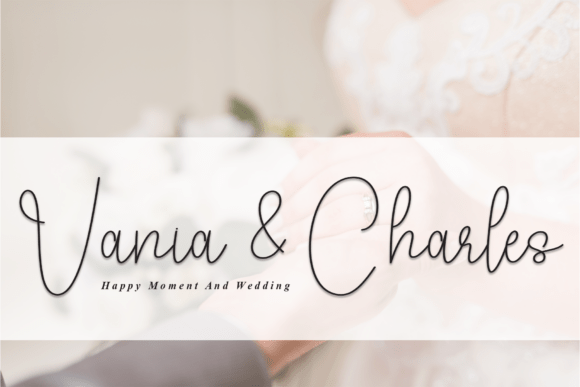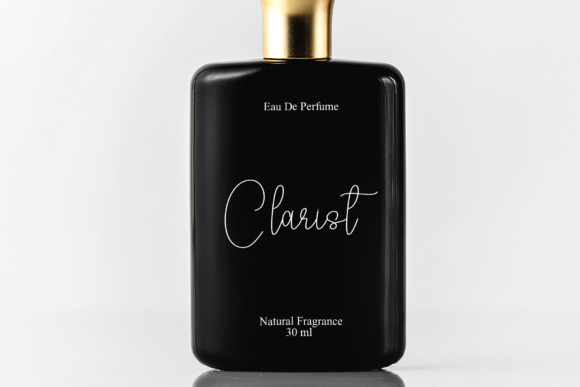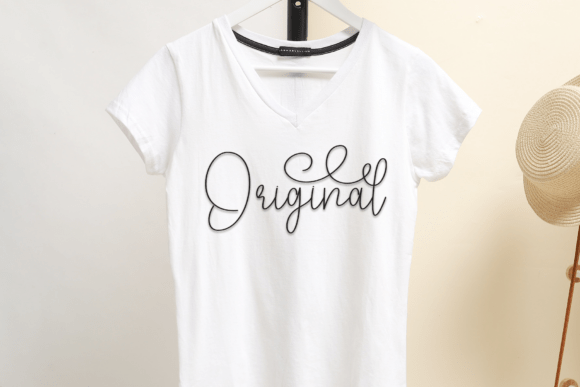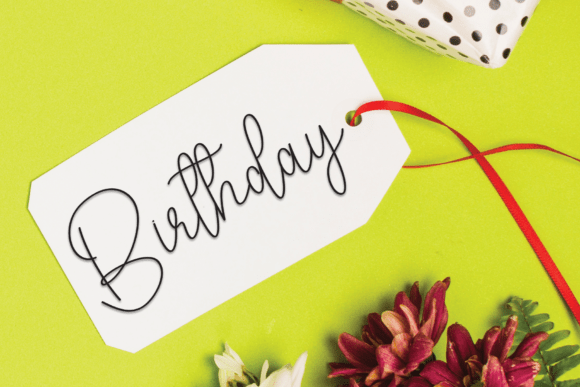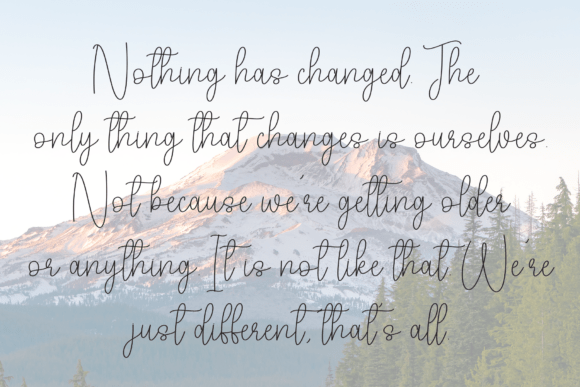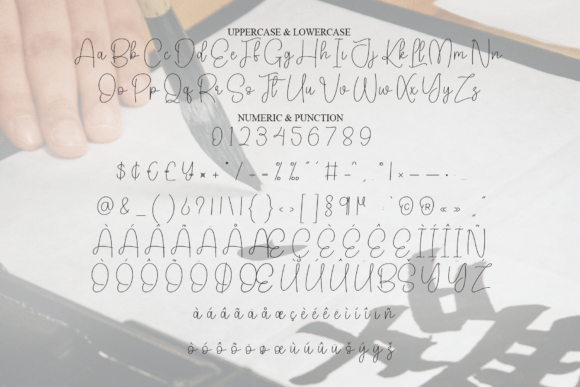
Elevate Your Designs with Calligraphy Font: A Timeless Elegance
Calligraphy is a stylish handwritten script font that combines elegance with a modern flair. Its flowing strokes and organic curves bring warmth and sophistication to any project. Ideal for branding, invitations, and social media, this typeface adds a personal, refined touch with effortless charm. In this article, we’ll explore the world of Calligraphy Font, its characteristics, and how to effectively use it in your designs.
The Art of Calligraphy: A Brief History
Calligraphy, which comes from the Greek words “kallos” meaning beauty and “graphein” meaning to write, is an ancient art form that dates back to the early days of writing. It involves the use of specialized tools, such as nibs, ink, and quills, to create decorative and artistic lettering. Over the centuries, calligraphy has evolved, influenced by various cultures and artistic movements, resulting in a diverse range of styles and techniques.
Characteristics of Calligraphy Font
Calligraphy Font is a modern interpretation of traditional calligraphy, distilled into a digital format. Its key characteristics include:
- Flowing strokes: Calligraphy Font features smooth, connected strokes that create a sense of fluidity and movement.
- Organic curves: The font’s curves and swashes add a touch of elegance and sophistication.
- Modern flair: Calligraphy Font combines traditional calligraphy elements with a modern twist, making it perfect for contemporary designs.
Using Calligraphy Font in Your Designs
Calligraphy Font is a versatile typeface that can elevate a wide range of design projects. Here are some ideas on how to use it:
- Branding: Add a touch of elegance to your brand’s identity with Calligraphy Font. Use it for logos, business cards, or letterheads to create a sophisticated image.
- Invitations: Make your invitations stand out with Calligraphy Font. It’s perfect for wedding invitations, birthday parties, or formal events.
- Social media: Use Calligraphy Font to create eye-catching social media graphics, such as quotes, posters, or flyers.
Tips for Working with Calligraphy Font
To get the most out of Calligraphy Font, follow these tips:
- Keep it simple: Don’t overcomplicate your design. Calligraphy Font is elegant and sophisticated, so let it shine.
- Experiment with colors: Try different color combinations to find the perfect match for your design.
- Mix and match: Combine Calligraphy Font with other fonts or graphics to create a unique look.
Why Choose Calligraphy Font?
Calligraphy Font offers a range of benefits, including:
- Unique and distinctive: Calligraphy Font adds a personal touch to your designs, setting them apart from the crowd.
- Elegant and sophisticated: The font’s flowing strokes and organic curves bring warmth and refinement to any project.
- Versatile: Calligraphy Font can be used in a variety of design projects, from branding to social media.
Calligraphy Font is a beautiful and elegant typeface that can elevate your designs to the next level. Its flowing strokes, organic curves, and modern flair make it perfect for a wide range of projects. With its versatility, unique character, and sophisticated look, Calligraphy Font is an excellent choice for designers and crafters looking to add a touch of refinement and elegance to their work.